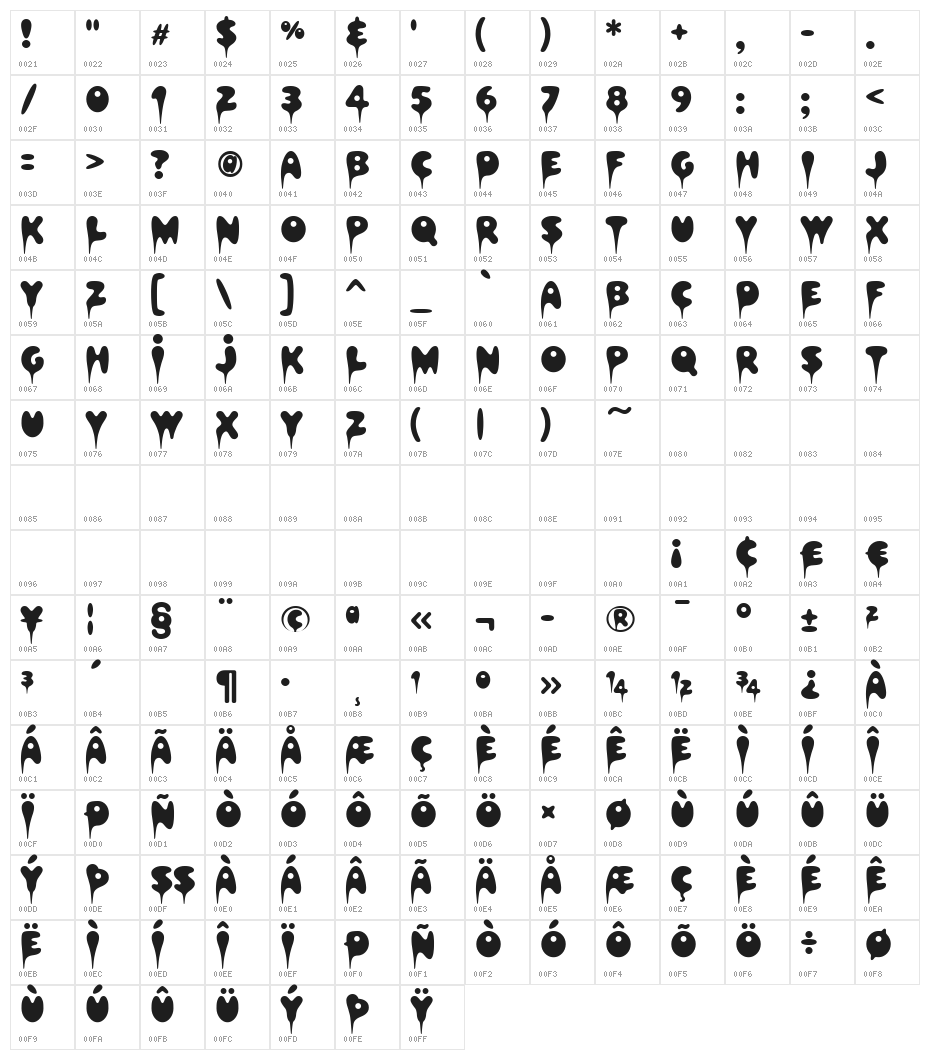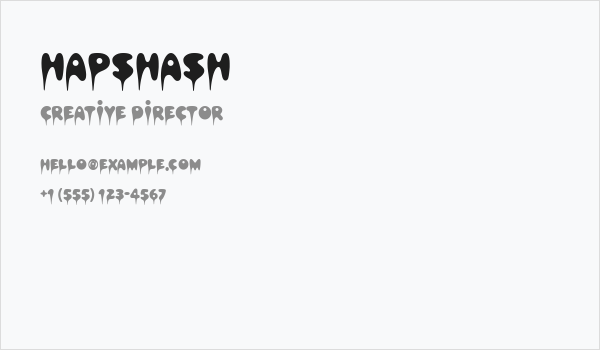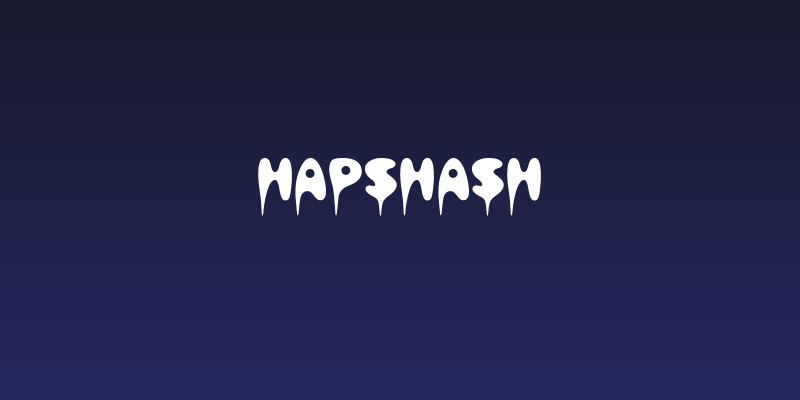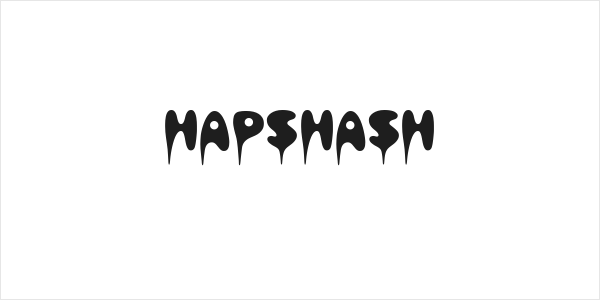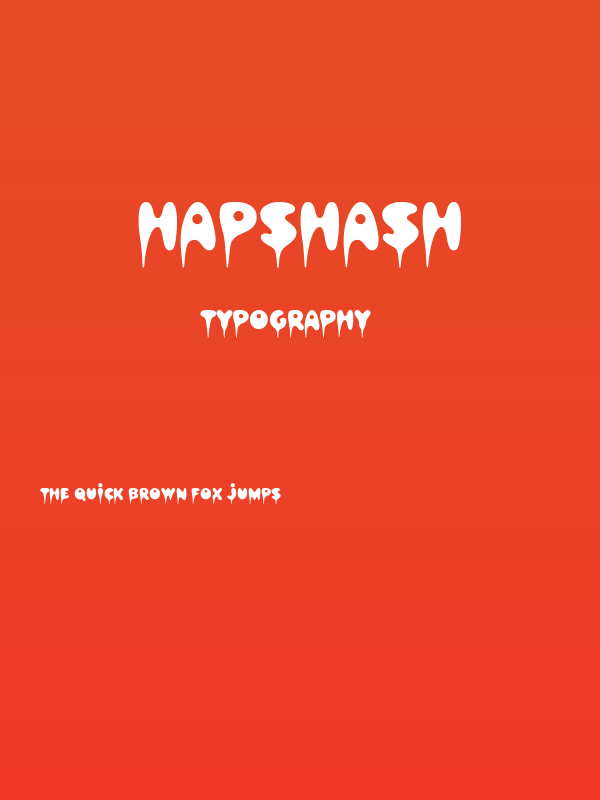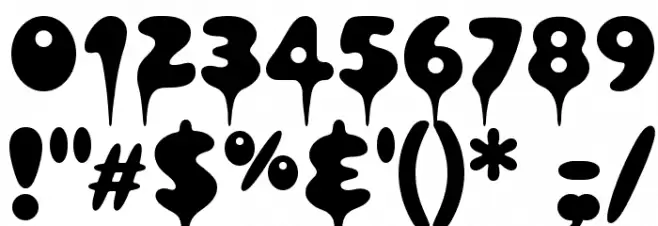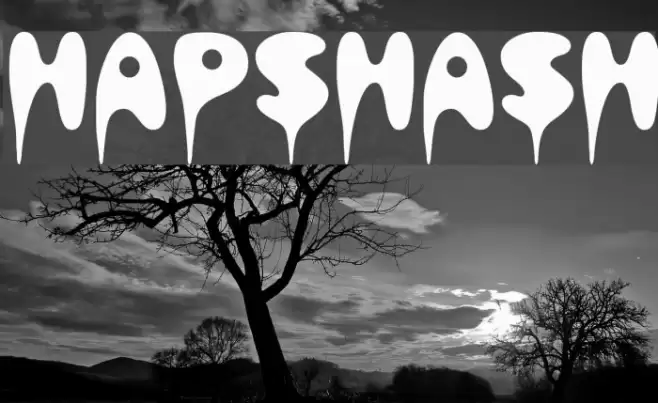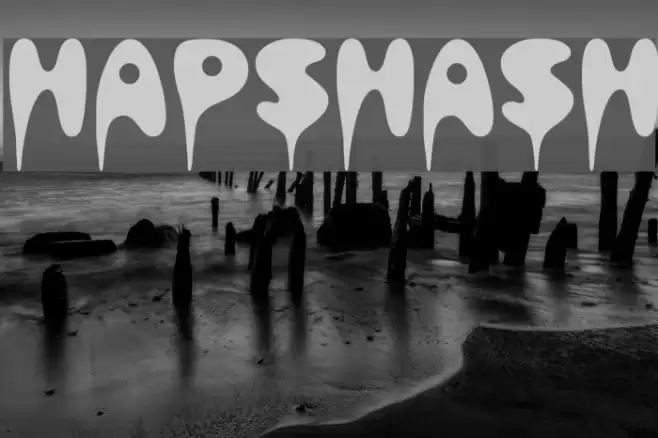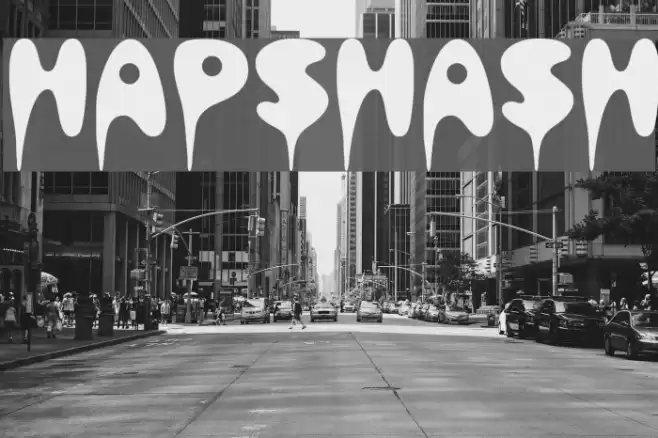
Hapshash Font
Hapshash Description
This font features a bold, dripping style that gives it a unique, liquid-like appearance. The characters are thick and rounded, with elongated, tapering descenders that create a sense of movement and fluidity. The uppercase and lowercase letters maintain a consistent style, with exaggerated curves and a playful, almost cartoonish quality. The numbers and special characters follow the same design principles, ensuring a cohesive look across all elements. This font is highly decorative and eye-catching, making it ideal for projects that require a bold and unconventional aesthetic.
| Use Case | Logos, Posters, Headlines |
| Proposed Projects | Ideal for Halloween-themed designs, music posters, or any project needing a bold, eye-catching aesthetic. |